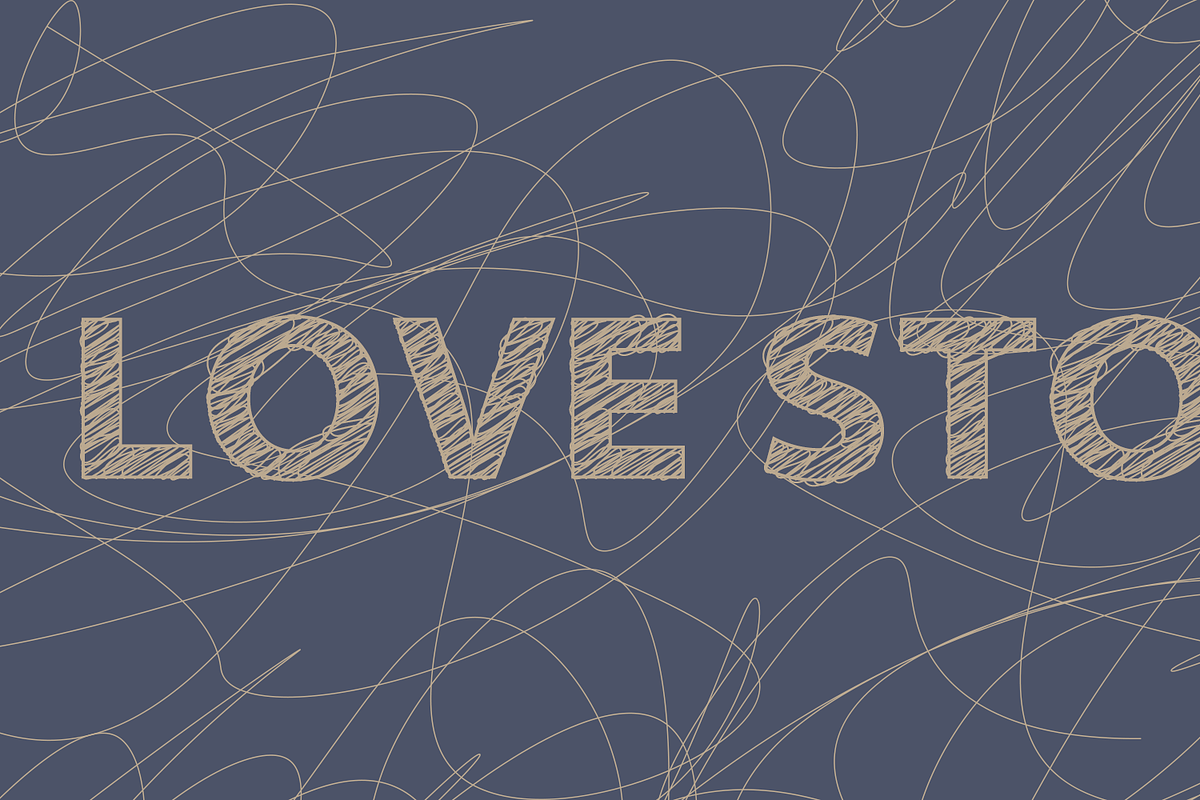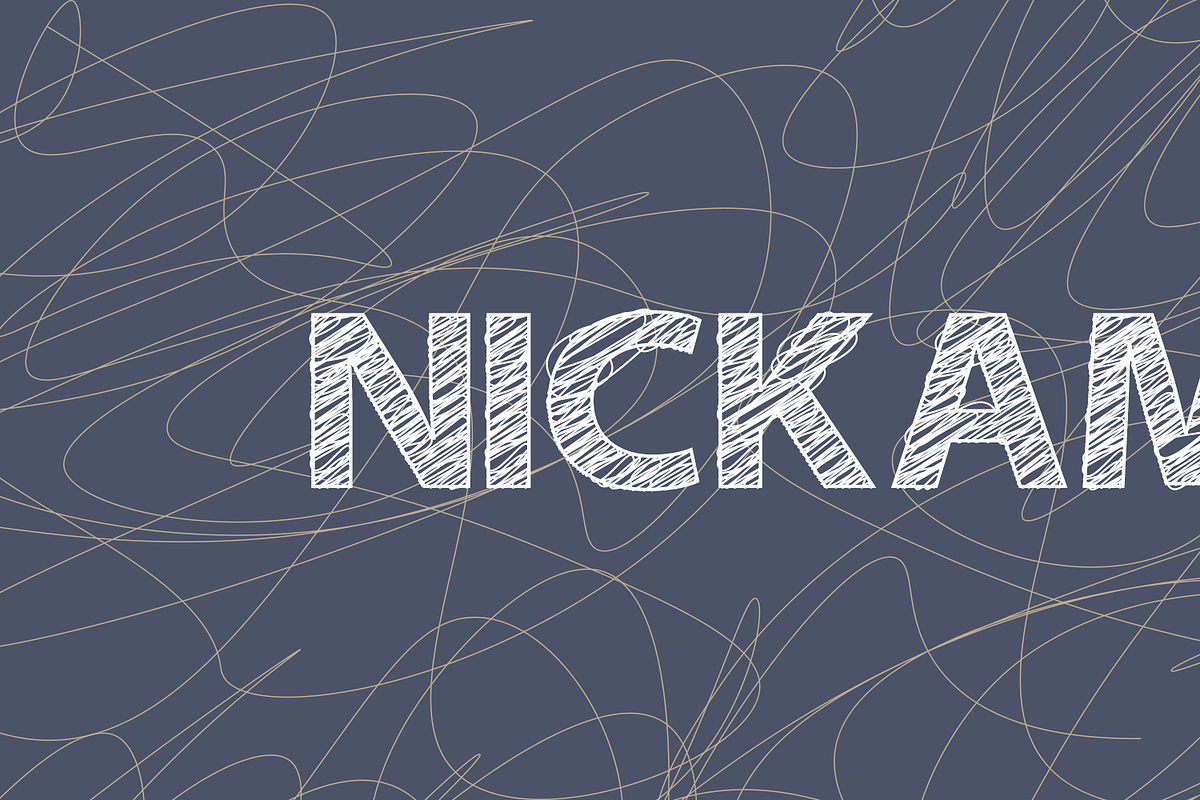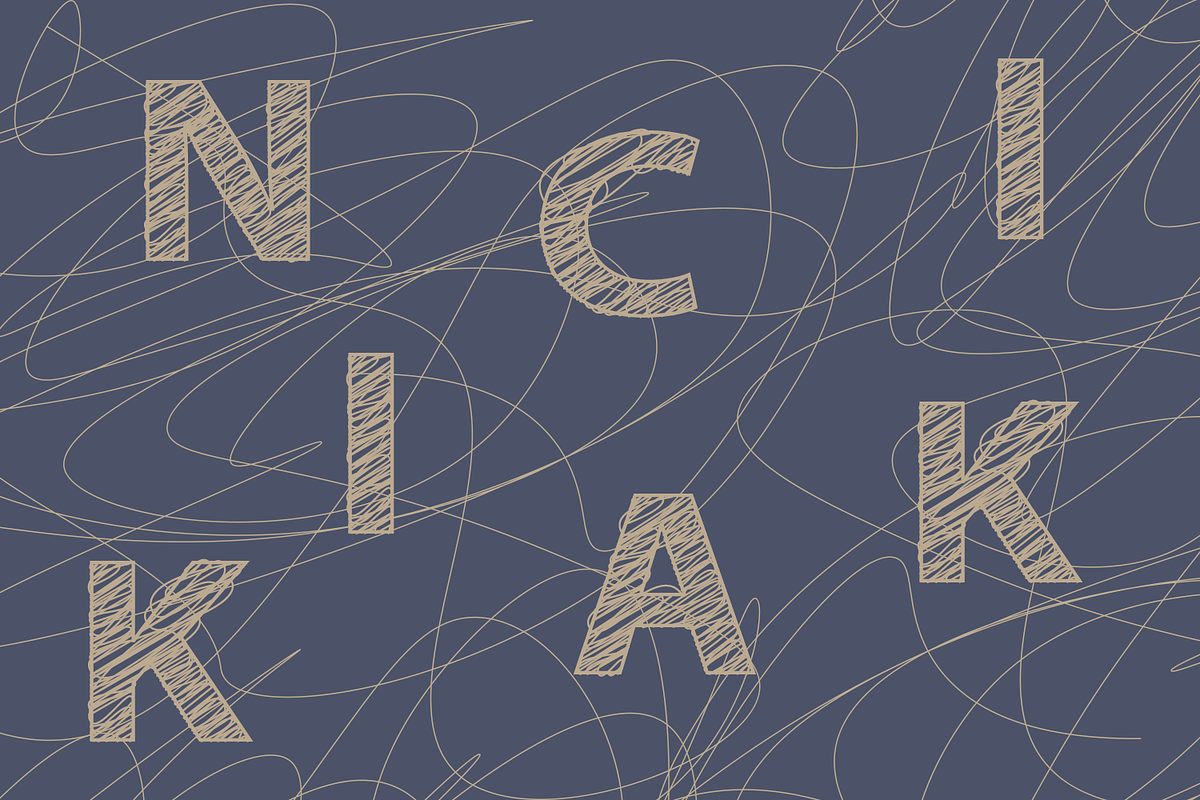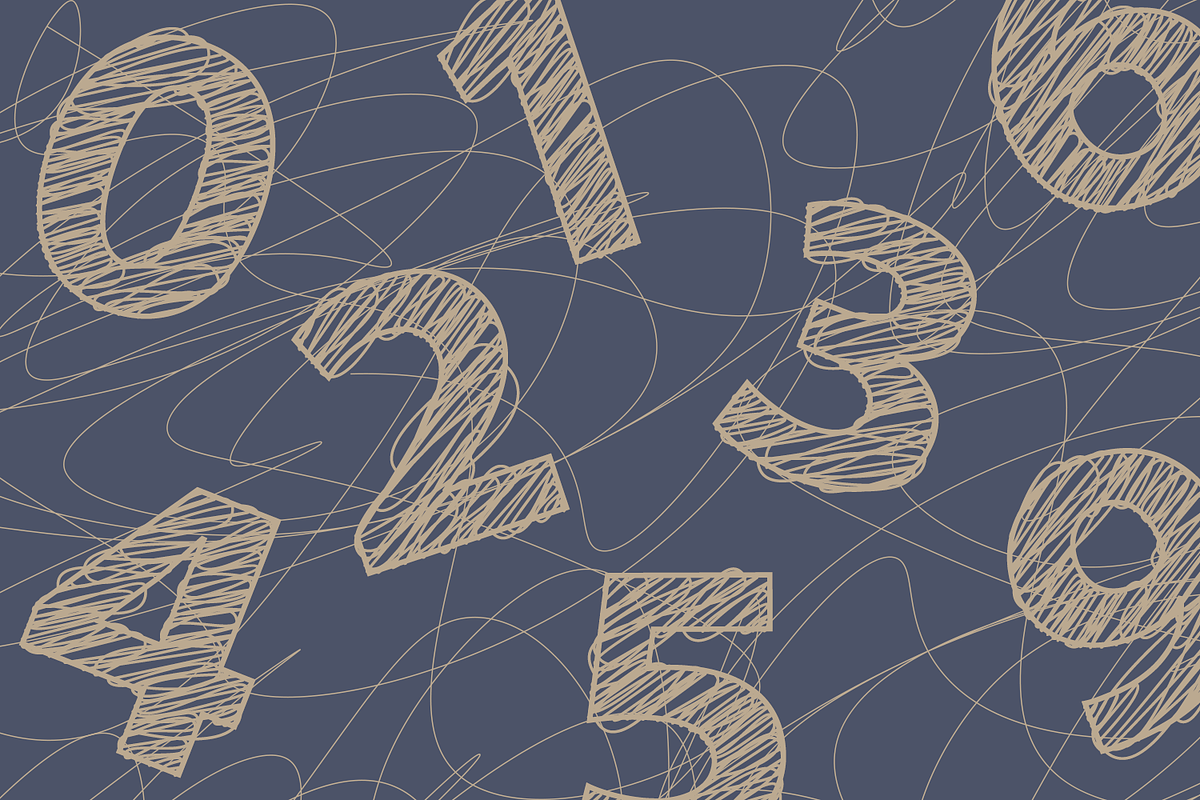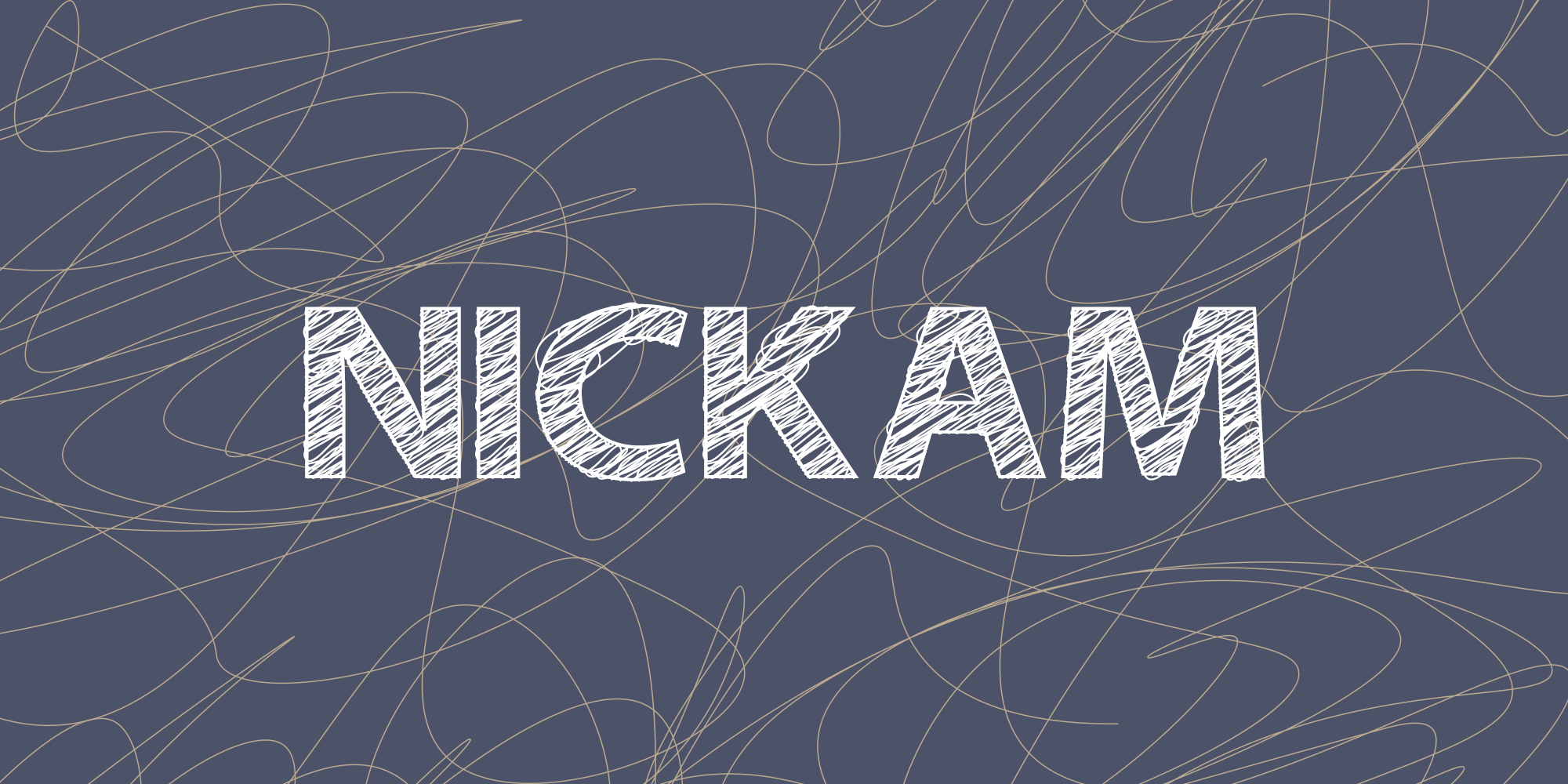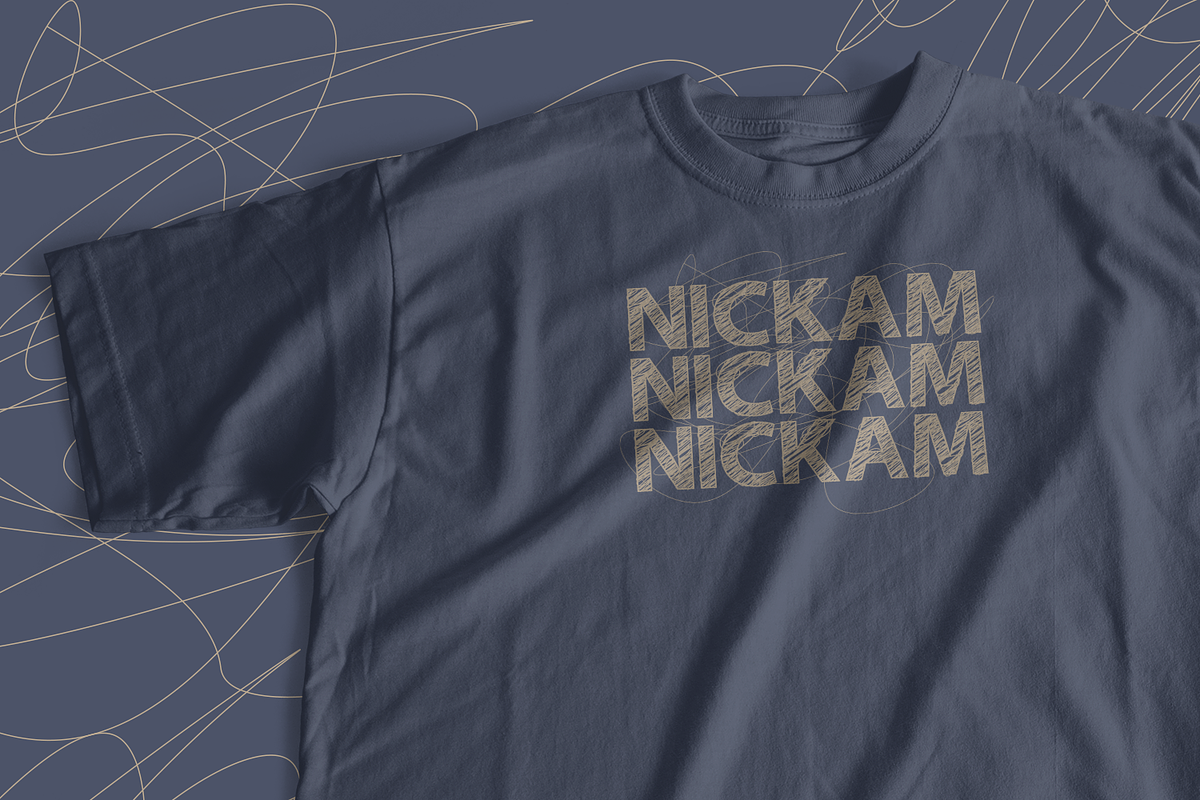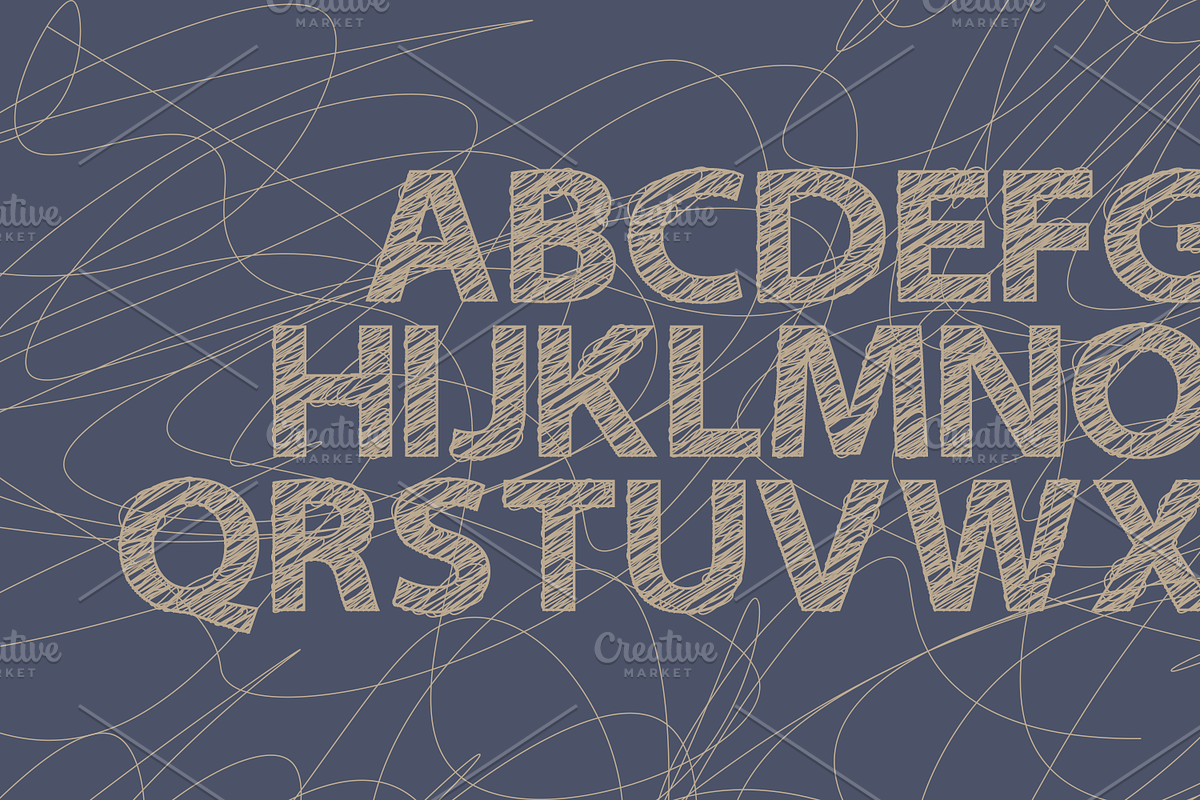
NICKAM Scribble Font
You want to add more rawness to your design. The NICKAM Font comes in Unbored Scribbles style, making your voice louder. NICKAM is handwritten font. You can also combine any character with a NICKAM Font and alternates for an incredible combination!
This font is perfect for your display project for headlines, quotes, editorial design, print posters, Tshirt, and much more.